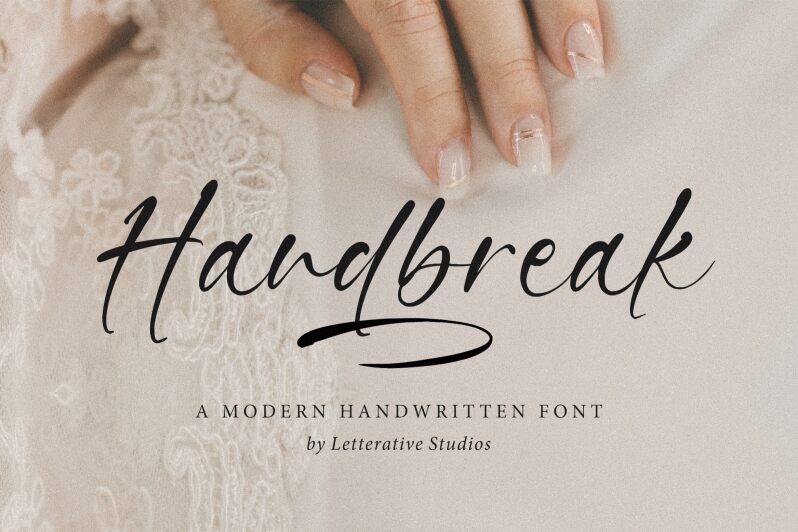
Handbreak
Handbreak is a versatile script font that brings a touch of elegance to any design.
Created by Letterative Studio, this elegant script can be used for logos, business cards, branding packages, websites, wedding invitations, wedding branding packages, letterheads, print and web designs.